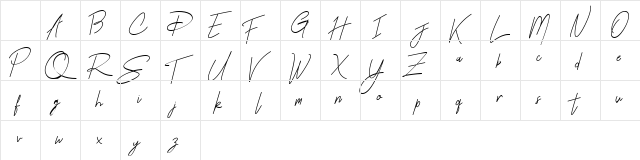
Rhesmanisa is a composed and adaptable typeface that performs quietly and consistently across a wide range of design contexts.
Pro Tip: Use Rhesmanisa in both headline and body roles to test its range before committing to a single application.